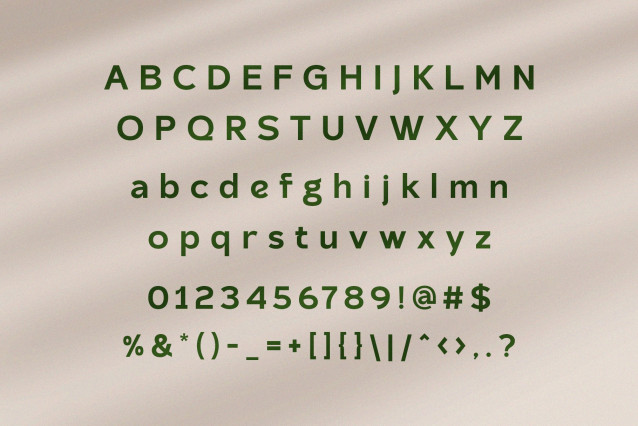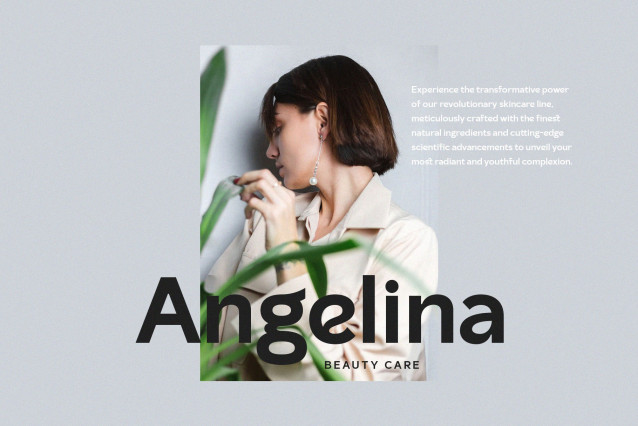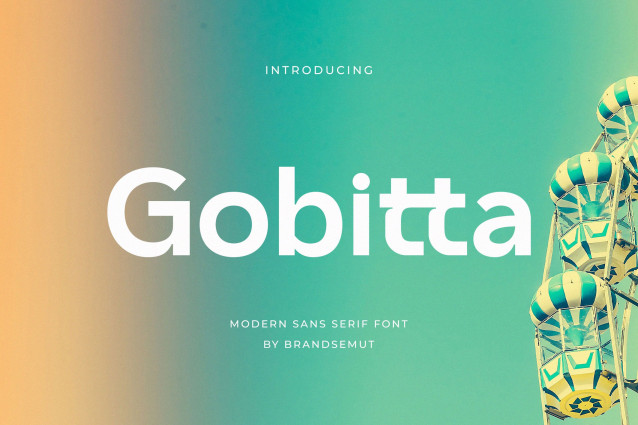
Gobitta Font
Gobitta Font is a modern and classy typeface, best used as a display for headings, logos, branding, magazines, product packaging and invitations. Gobitta come with clean lines and smooth curves give any project an extra touch of class.